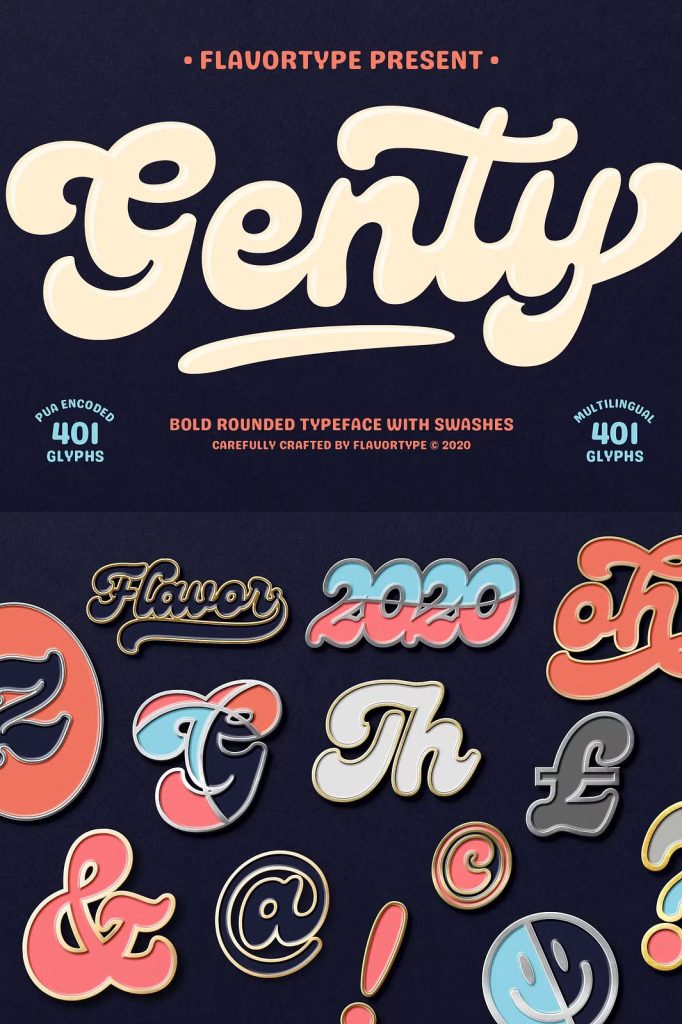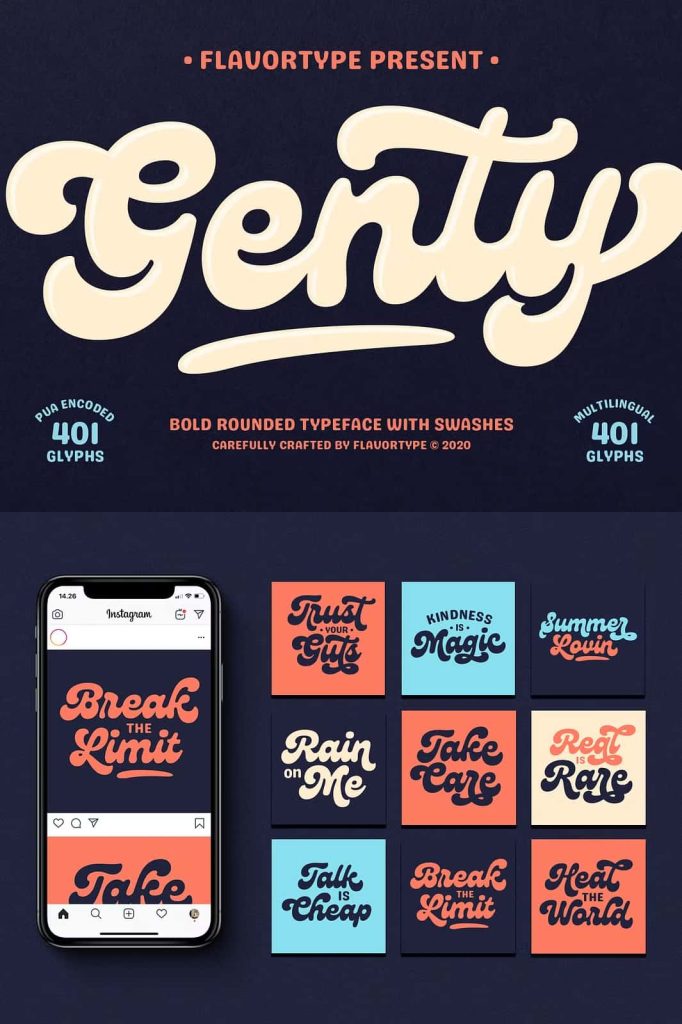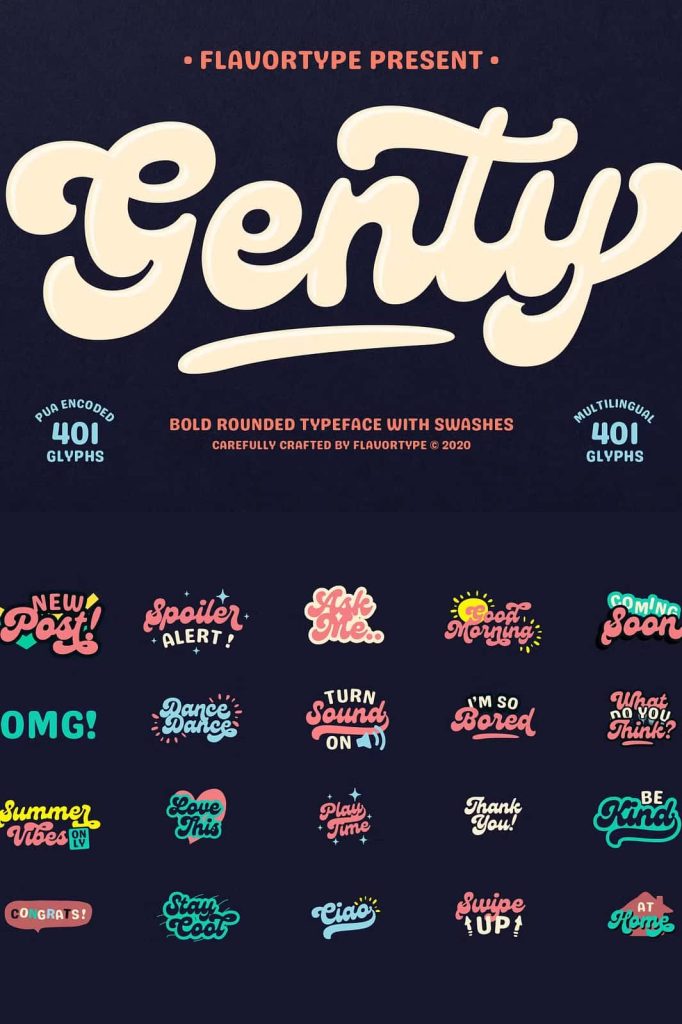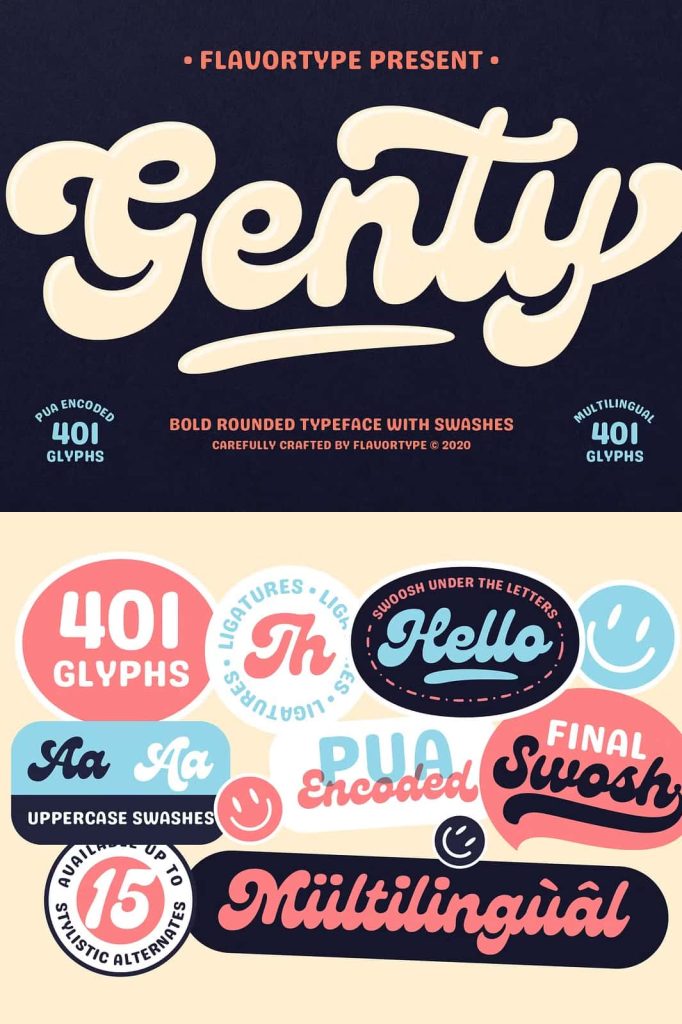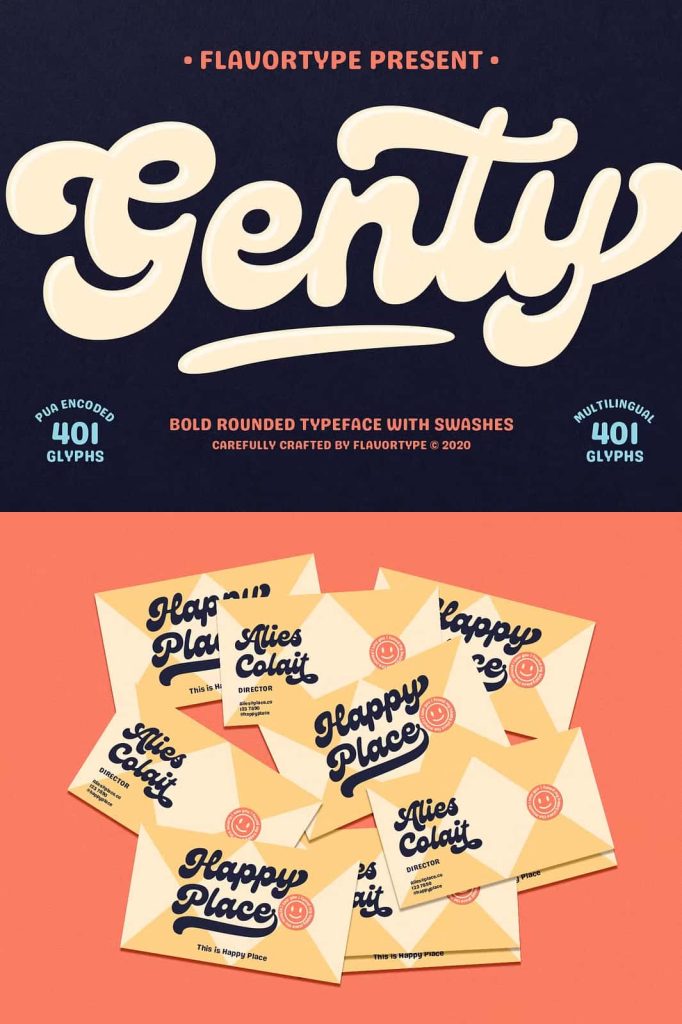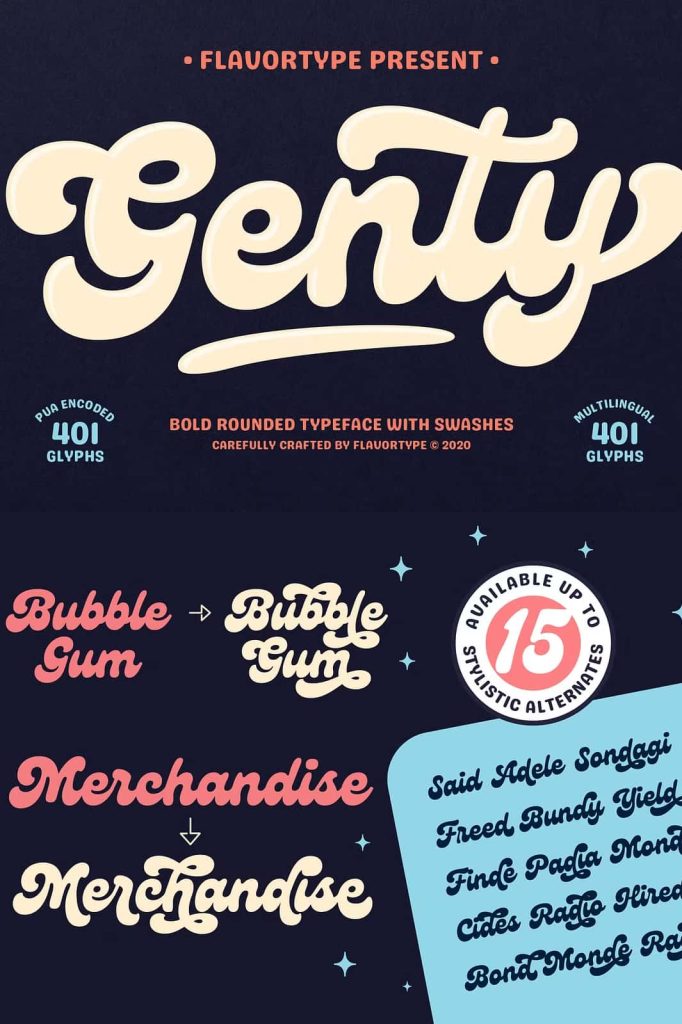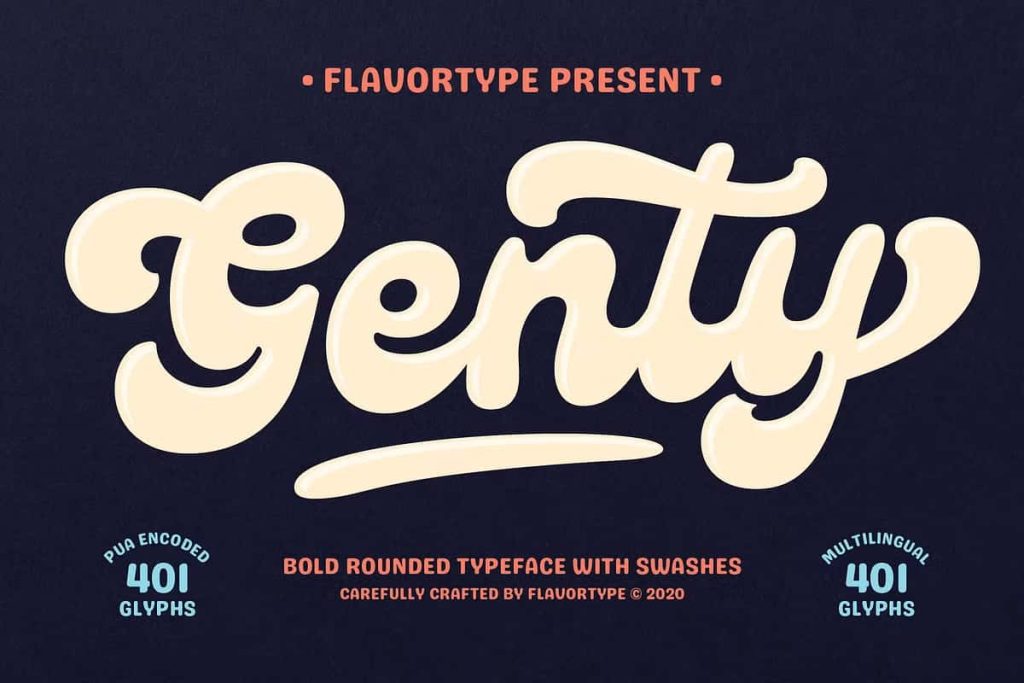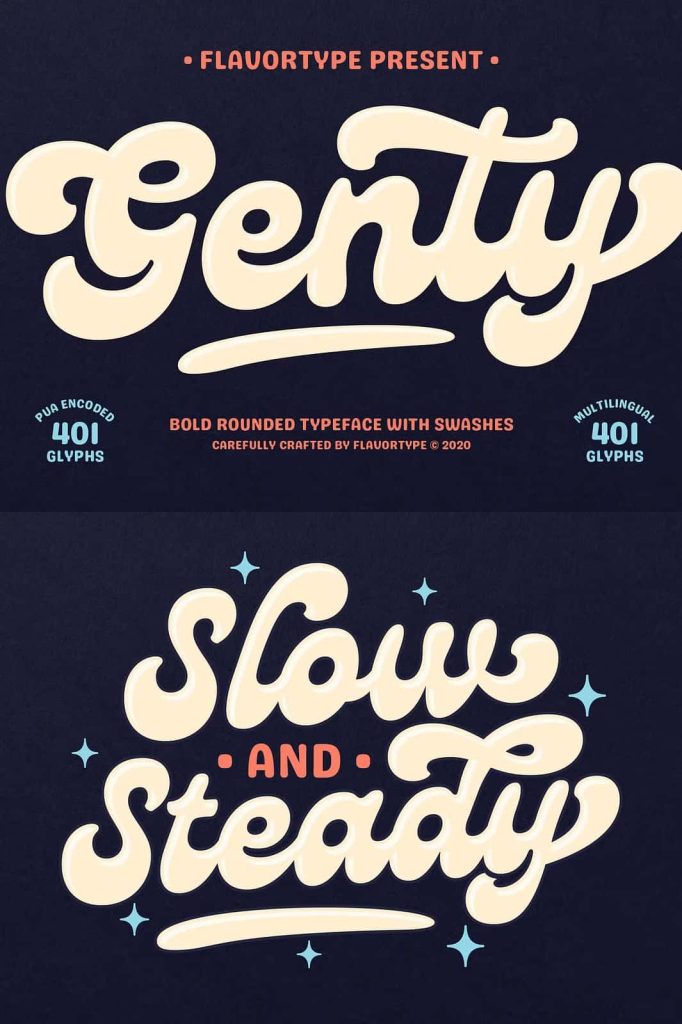
Genty Font: A Delightful Bold Script Typeface Full of Personality
Meet Genty, a vibrant and carefully crafted bold script font designed to bring fun, beauty, and energy to your design projects. Inspired by the successful qualities of our previous fonts, Budge and Glaw, Genty combines the best elements of both, creating a playful yet stylish typeface that captures attention instantly. This versatile font is perfect for branding, logos, social media graphics, invitations, packaging, and creative design projects that demand personality, charm, and a modern aesthetic.
Genty is more than just a font; it’s a tool to infuse your designs with a sense of joy, style, and contemporary appeal. Its smooth flowing curves, bold strokes, and elegant yet playful letterforms make it ideal for projects that need to communicate energy and creativity. Whether used individually or combined with complementary typefaces, Genty ensures your typography stands out and leaves a lasting impression.
Designed for Fun, Beauty, and Versatility
Genty Font is intentionally designed to be both playful and professional. Its bold script style is expressive, providing a fun and vibrant visual experience while maintaining readability and balance. The font features flowing connections and graceful curves that add a sense of movement, making your designs feel dynamic and alive. Genty’s versatility allows it to function beautifully across a wide variety of applications, from playful branding to elegant packaging and trendy social media campaigns.
The font’s design draws inspiration from our earlier fonts, Budge and Glaw, combining their most appealing features to create something new and fresh. This blend results in a typeface that is simultaneously fun, cute, and stylish while maintaining a modern edge. Its bold character makes it suitable for high-impact applications, while its playful nuances make it perfect for creative projects that aim to connect with audiences on a personal and emotional level.
Perfect for Branding, Logos, and Social Media
Genty Font shines in applications where personality and charm are essential. Its expressive script style is ideal for brand identities, logos, and packaging design, giving products and services a distinctive voice. The font’s playful energy adds a memorable touch to any design, helping brands stand out in crowded markets. By pairing bold strokes with flowing, elegant connections, Genty allows designers to create logos that feel dynamic, approachable, and modern.
In social media design, Genty brings life to posts, advertisements, and stories. Its versatility ensures that it works beautifully across platforms, whether for Instagram, Facebook, Pinterest, or TikTok. The font adds a friendly and creative touch, perfect for trendy campaigns and visually engaging content. From headers and call-to-action text to decorative elements, Genty keeps your audience engaged and leaves a lasting impression.
Features and Design Elements of Genty Font
The uniqueness of Genty Font comes from its careful attention to detail and playful design elements. Key features include:
- Bold Script Style: Delivers visual impact while maintaining elegance and readability.
- Playful and Vibrant Character: Adds energy, fun, and personality to any project.
- Flowing Connections: Smooth, natural letterforms create a sense of movement and liveliness.
- Versatile Usage: Perfect for logos, branding, posters, social media, packaging, invitations, and more.
- Handcrafted Details: Each character exhibits carefully crafted curves and stylistic nuances that enhance charm.
- Trendy and Modern Aesthetic: Combines the best elements of Budge and Glaw for a fresh, contemporary look.
These features ensure that Genty is not just visually appealing, but also functional across multiple design applications. Its balance of boldness and elegance provides designers with a tool that is as versatile as it is distinctive.
Why Designers Choose Genty Font
Designers gravitate toward Genty Font because it strikes the perfect balance between playfulness and professionalism. Its vibrant, bold design enables creative freedom while maintaining readability, making it ideal for high-impact projects. Whether you are creating eye-catching logos, expressive social media graphics, or trendy packaging, Genty brings creativity, energy, and personality to every design.
The font’s unique combination of characteristics—fun, boldness, elegance, and handcrafted charm—ensures that projects using Genty feel both modern and approachable. Designers can leverage its versatility to create cohesive typography systems that are visually striking while conveying warmth and personality.
Applications and Creative Possibilities
Genty Font offers endless possibilities for creative expression. Some common applications include:
- Branding and Logos: Create distinctive, memorable brand identities that communicate personality and style.
Genty Font is more than just a typeface; it is a tool for creative expression. Its combination of bold, playful script and elegant character allows designers to craft designs that feel energetic, modern, and approachable. Whether you are working on branding, social media, packaging, or editorial projects, Genty brings a delightful sense of fun, style, and personality to every design. Embrace Genty Font to make your typography vibrant, trendy, and unforgettable.